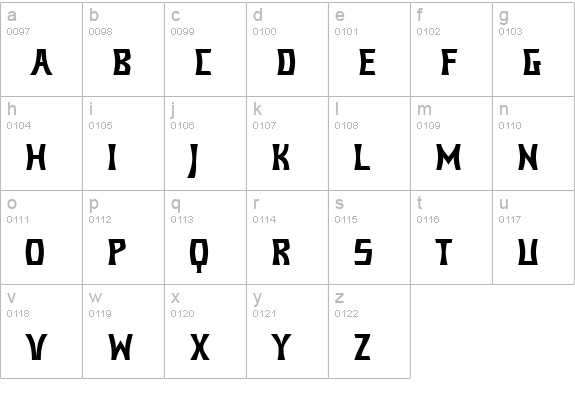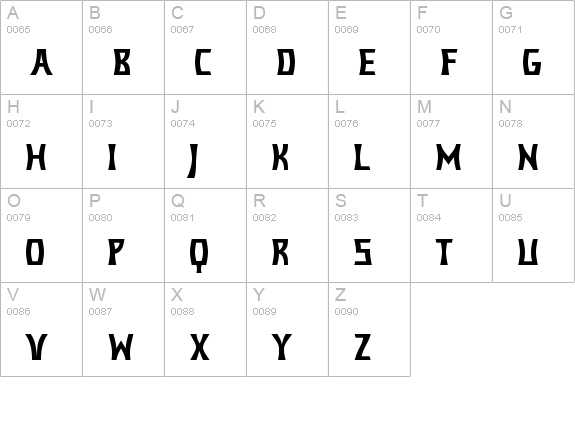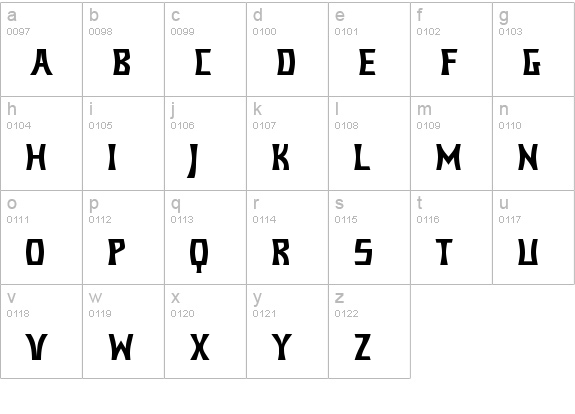
ConcavexCaps Font Details
ConcavexCaps font is a stylish and modern typeface that exudes sophistication and elegance. Its unique concave design gives it a sleek and contemporary look that is perfect for adding a touch of class to any design project. With its clean lines and bold lettering, ConcavexCaps font is sure to make a statement and grab the attention of your audience. This font is not only visually striking but also versatile, making it suitable for a wide range of applications including branding, advertising, and editorial design. The best part is that ConcavexCaps font is available for free download at FontsMarket.com. So, whether you are a designer looking to add a fresh and modern twist to your projects or a business owner in need of a standout font for your branding materials, ConcavexCaps font is the perfect choice. Download it today and elevate your designs with this stylish and eye-catching typeface.